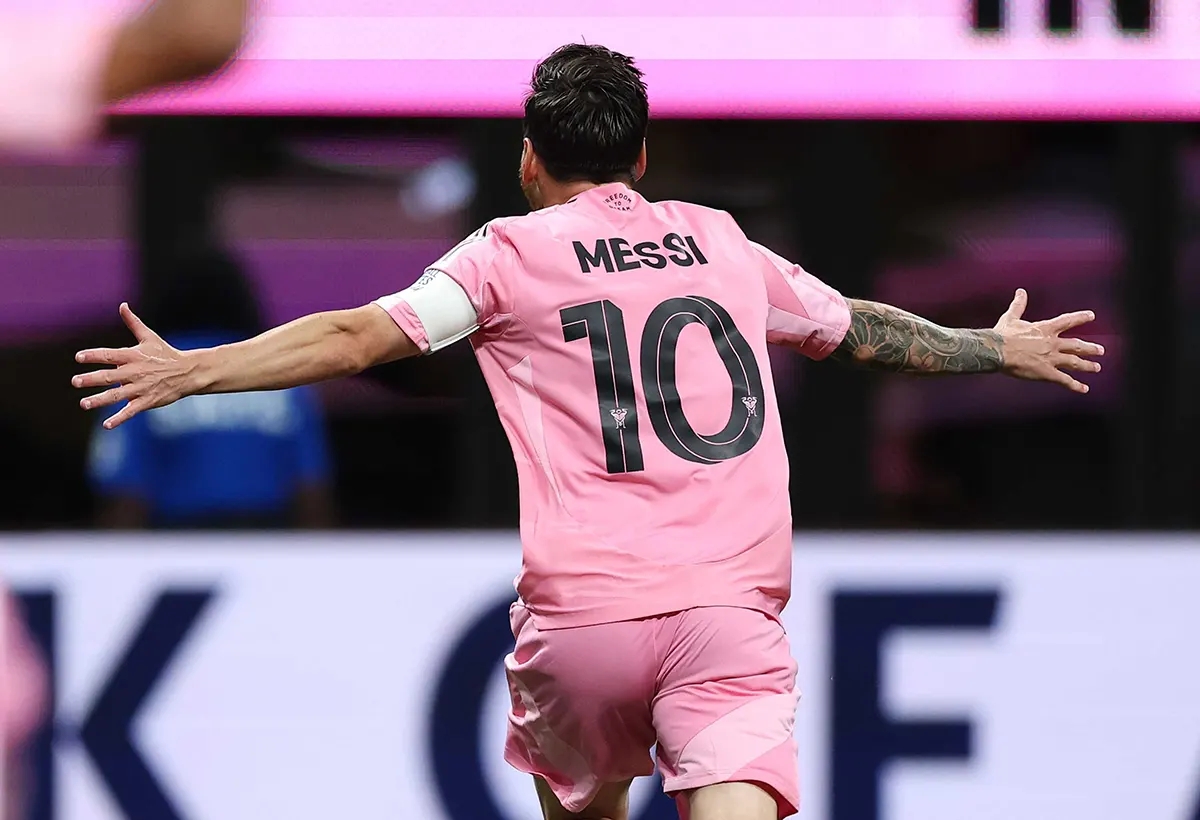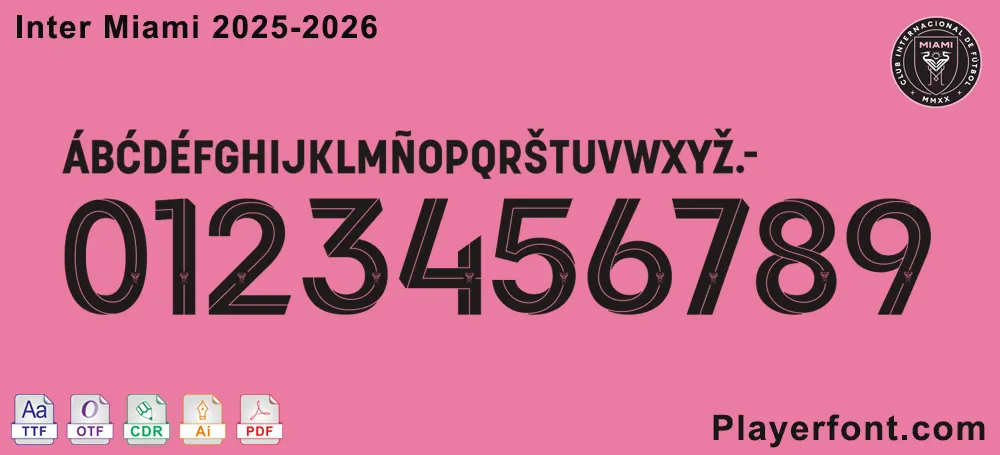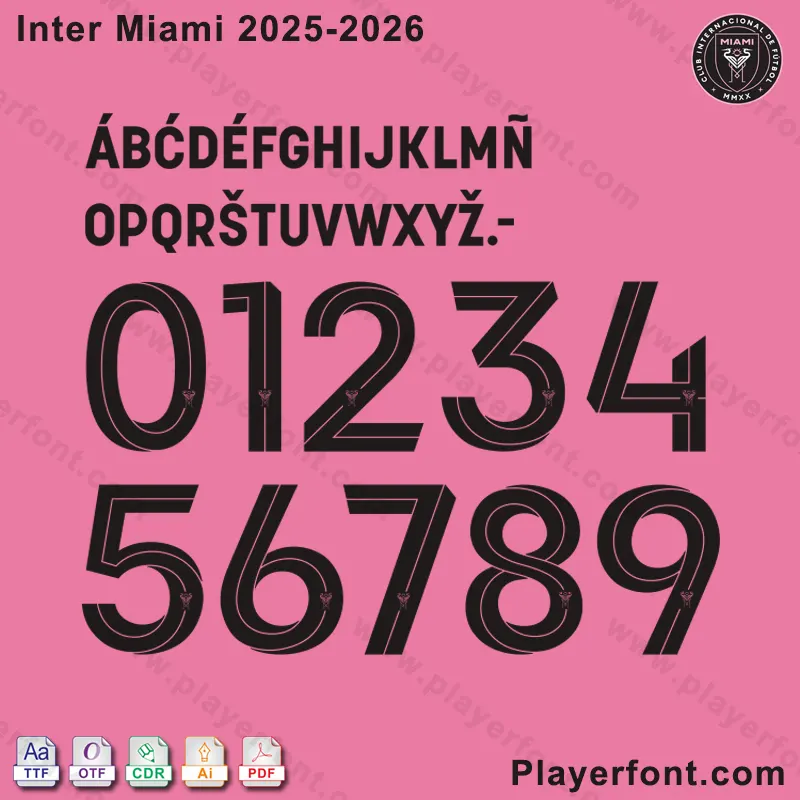
Elevate your design projects with the official Inter Miami 2025-2026 Font, a must-have for every fan and designer! This exclusive font is precisely replicated from the Inter Miami CF jersey, featuring the exact typography used for player names like Messi and numbers such as his iconic #10.
- Authenticity: Meticulously recreated from the official Inter Miami 2025-2026 jersey.